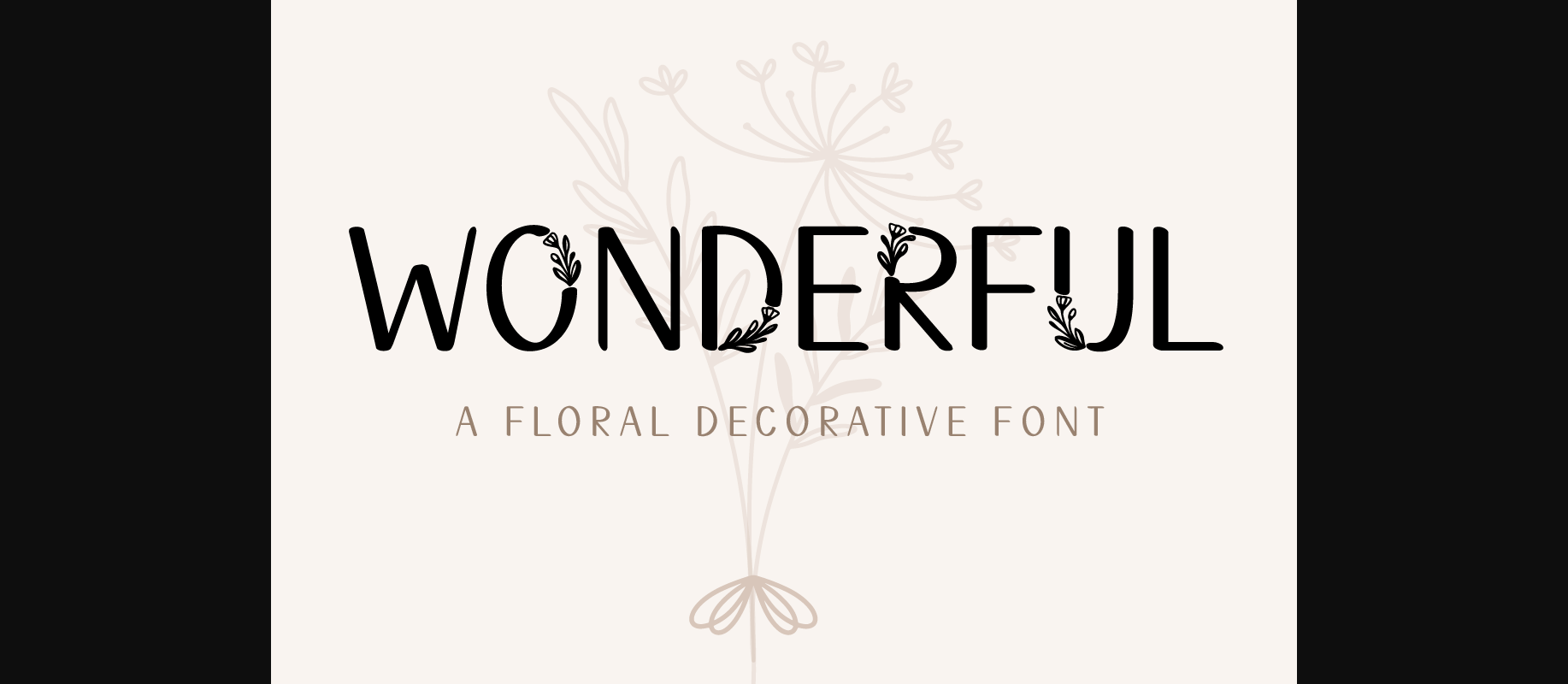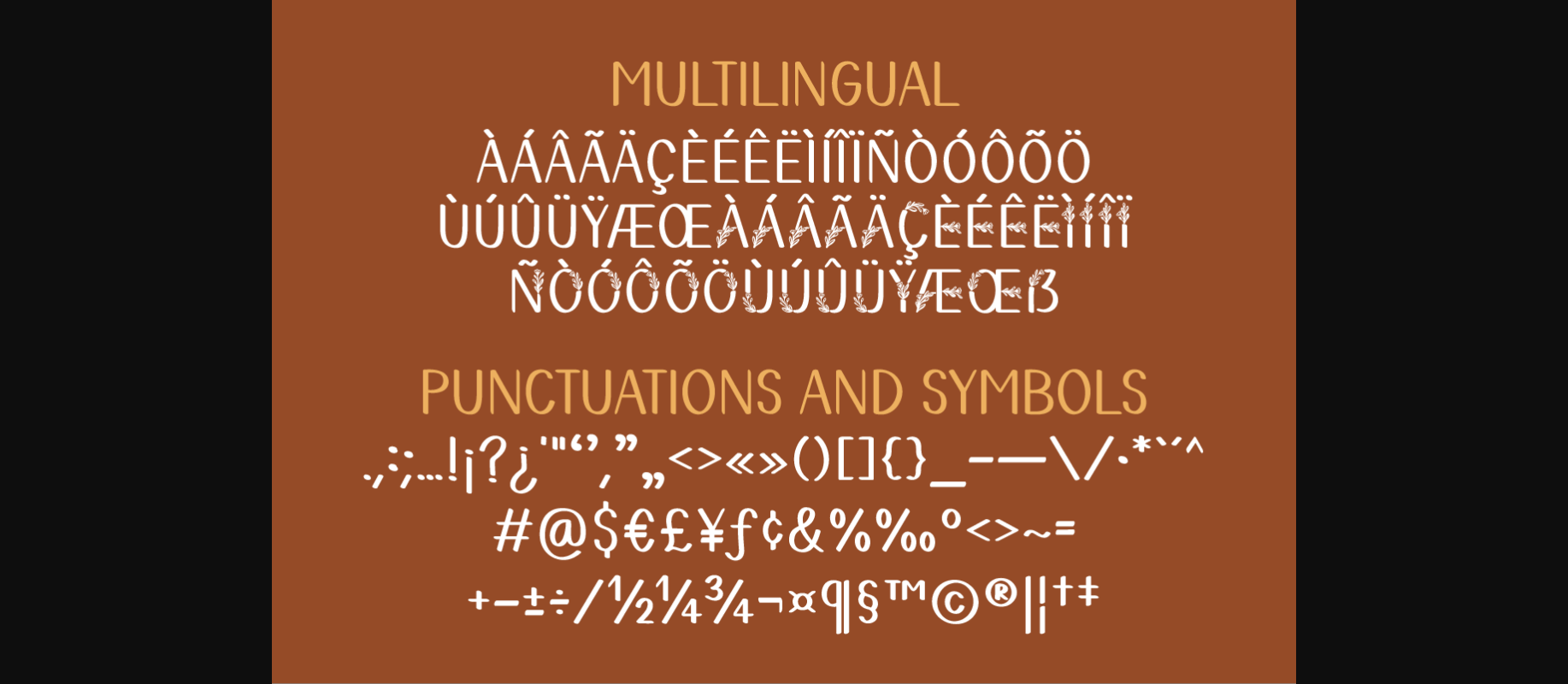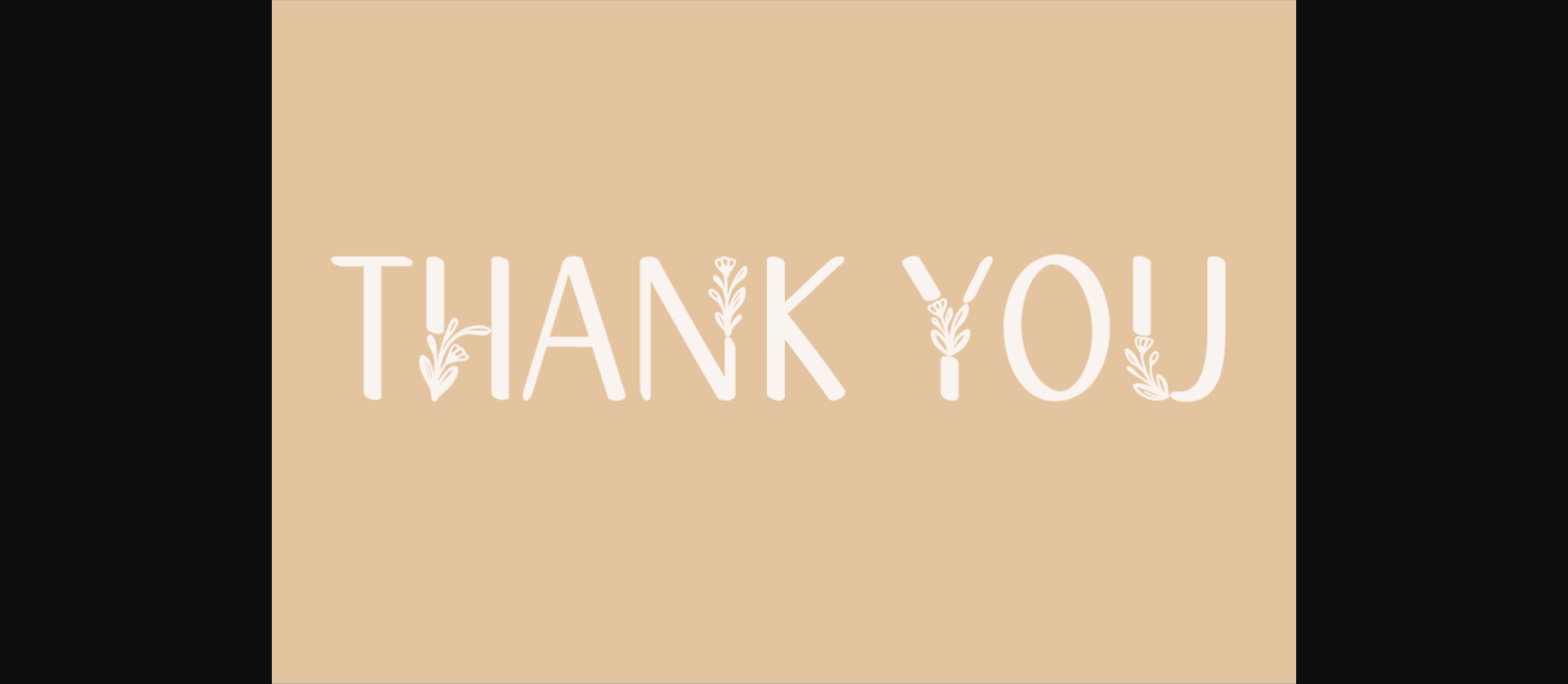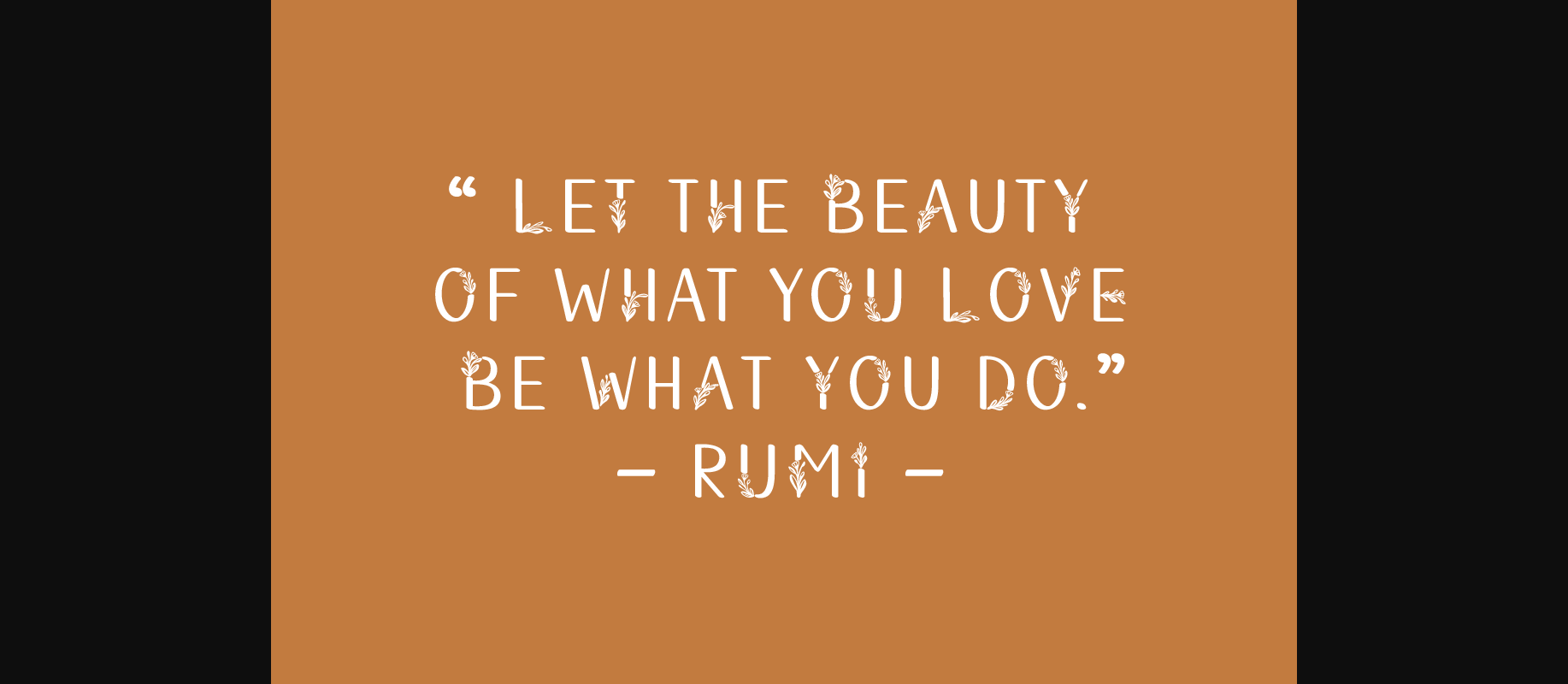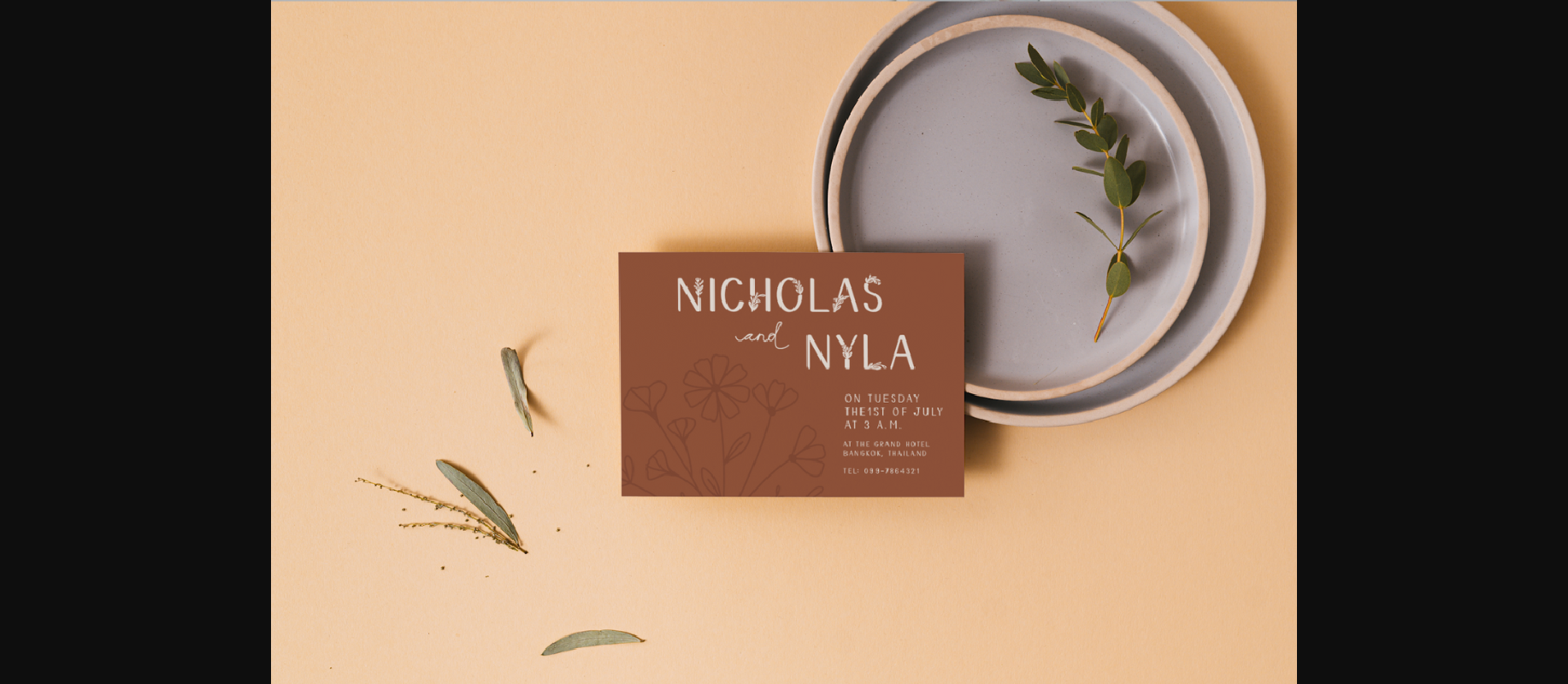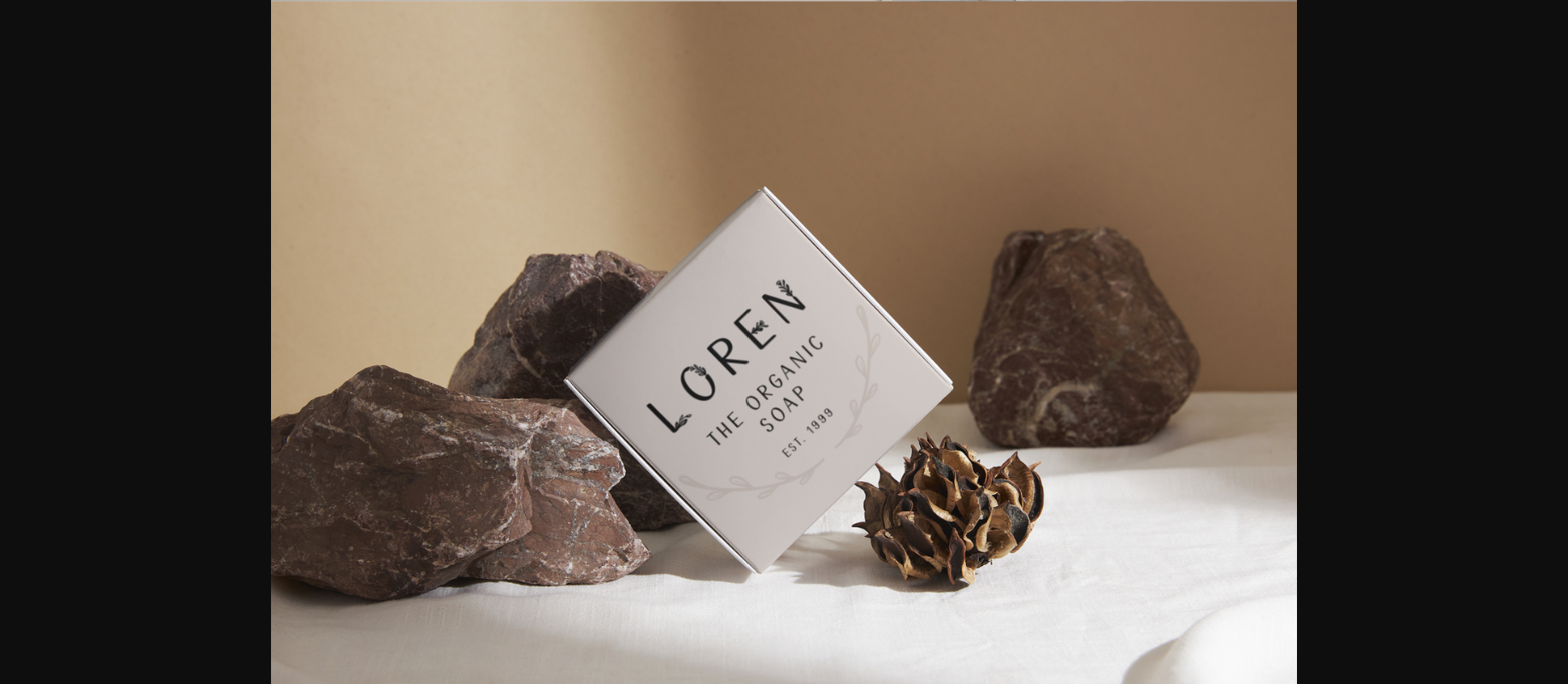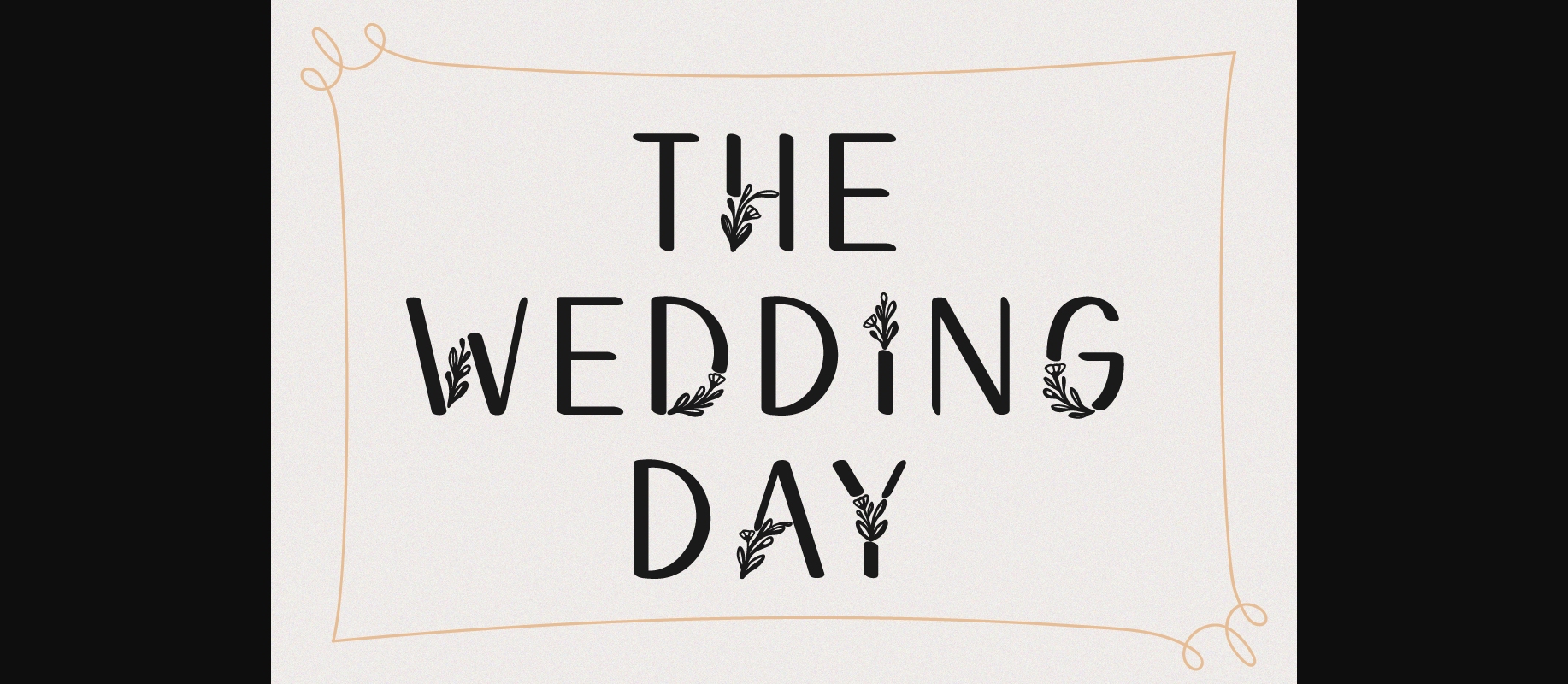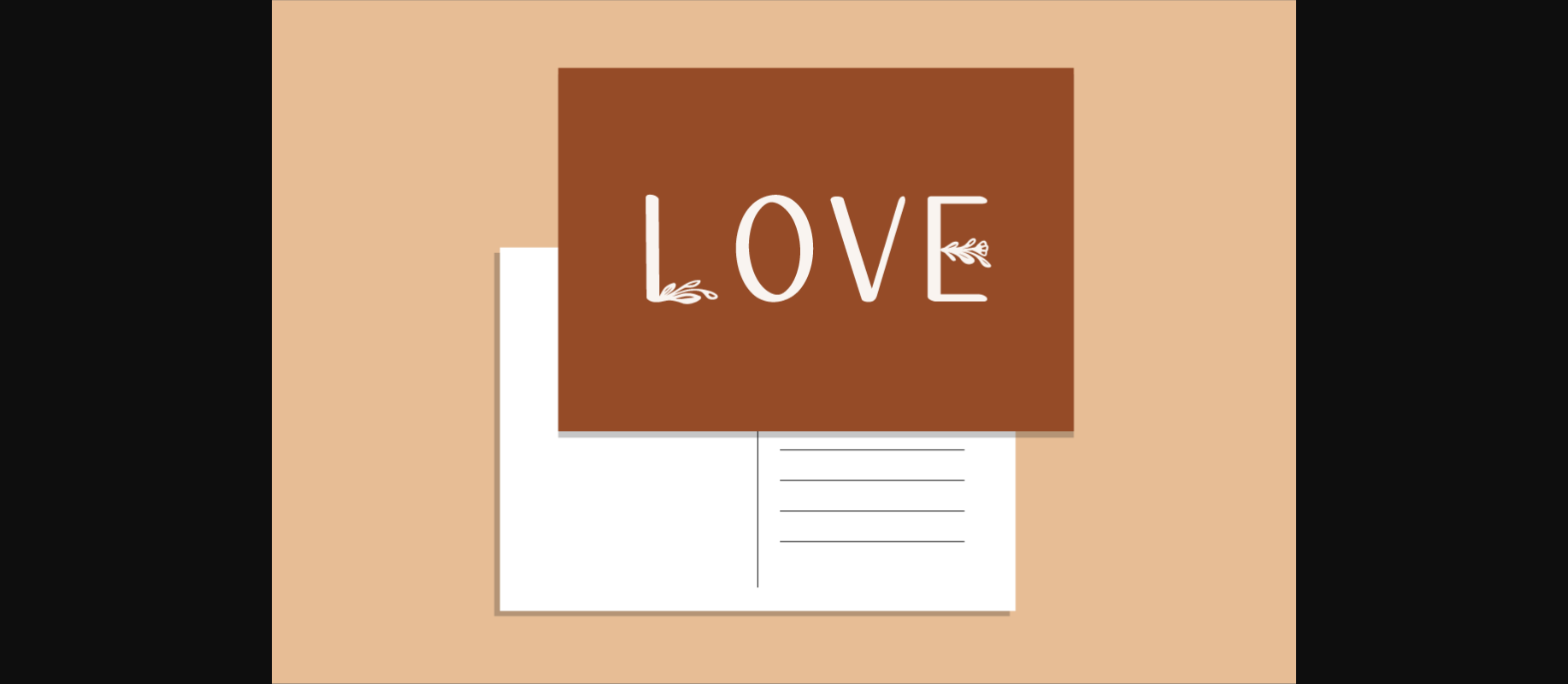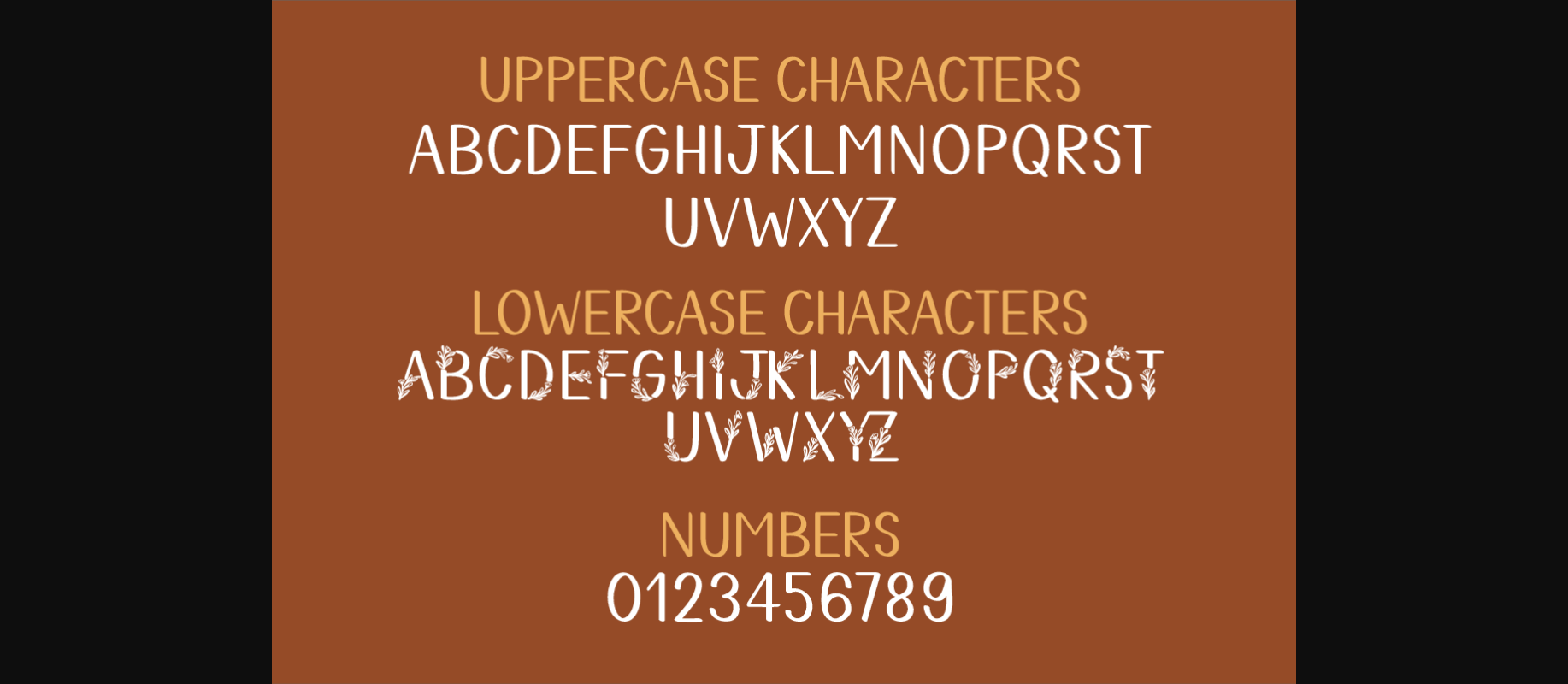
Wonderful Font
About Wonderful Font
Wonderful is a hand-drawn font with leaves decoration. Perfect for wedding projects, shirts, wedding designs, invitation cards, mugs, stickers, playful quotes, creating posters, logos, greeting cards, packaging, decorating the illustration and so much more!